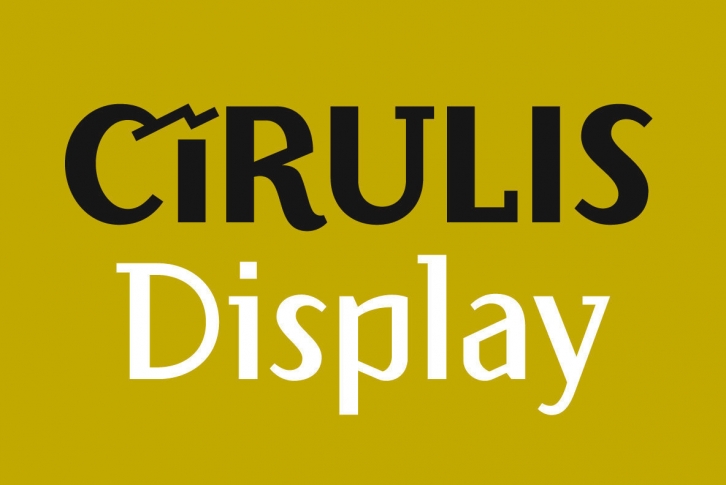
Designed and published by Asketic, Cirulis is a display sans family of two weights. Ansis Cīrulis (1883-1942) was one of the first Eastern European designers. The artist’s heritage is characterized by letters with asymmetric widths, sliced cuts and various intrinsic features. By carefully studying forms and origins of the letters we've designed a new display typeface that in a contemporary fashion relives early 20th century national romanticism of Eastern Europe.